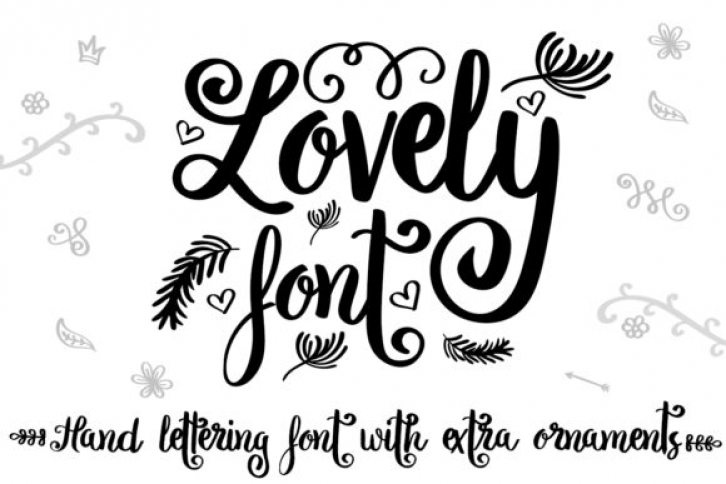
The Lovely is a modern cursive font, designed for the creative spirits out there!
Give a beautiful, organic feeling to your designs with this handwritten font and its extras.
You’ll have all the great pieces you need to create something wonderful by just adding some swirls or floral elements by using the extras!